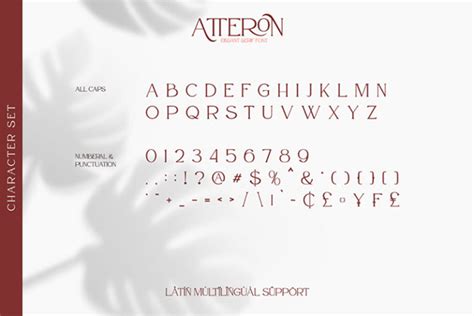
Atteron Personal Use Font. Web atteron is a elegant serif font. It is the best for logos, branding.
Atteron is a elegant serif font. Web atteron is a elegant serif font. It is the best for logos, branding and quotes. Made for any professional project branding. 64,776 downloads (41 yesterday) free for personal use. Web in basic > serif. It is the best for logos, branding. Made for any professional project branding.
Made for any professional project branding. Web atteron is a elegant serif font. It is the best for logos, branding. Atteron is a elegant serif font. Web in basic > serif. Made for any professional project branding. 64,776 downloads (41 yesterday) free for personal use. Made for any professional project branding. It is the best for logos, branding and quotes.